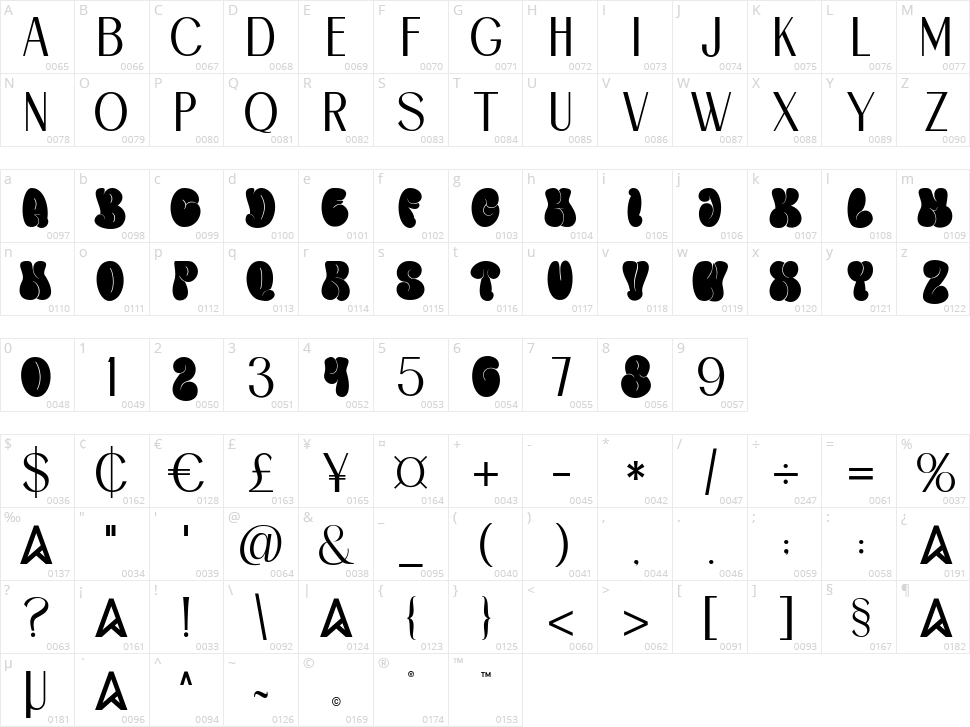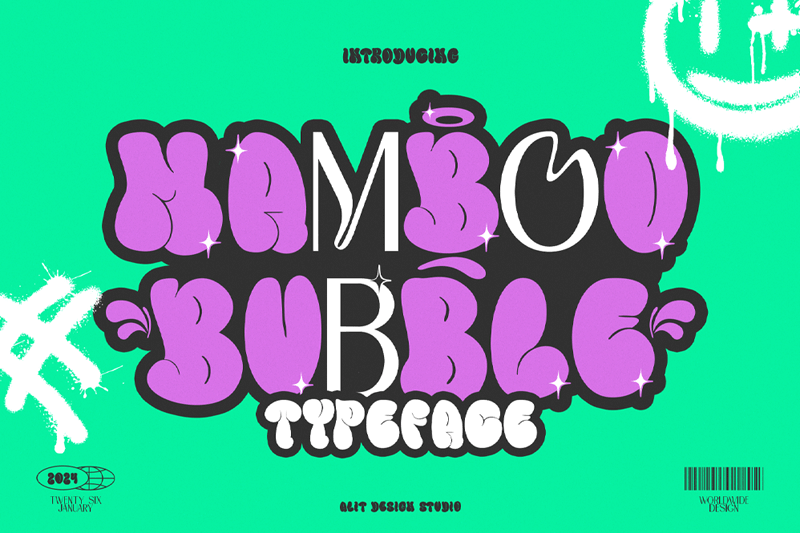
Mamboo bubble
Introducing Mamboo Bubble Mix Graffiti Font: Where Sans Serif Meets Urban Edge
Unleash your creativity with Mamboo Bubble Mix, a dynamic fusion of sleek sans serif typography and edgy bubble graffiti style. This unique font encapsulates the essence of urban expression, offering a versatile tool for designers, artists, and creatives alike.